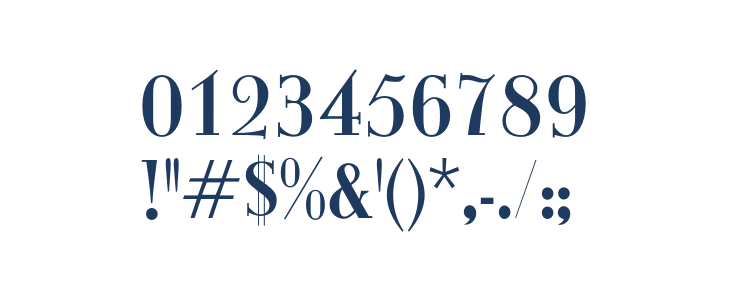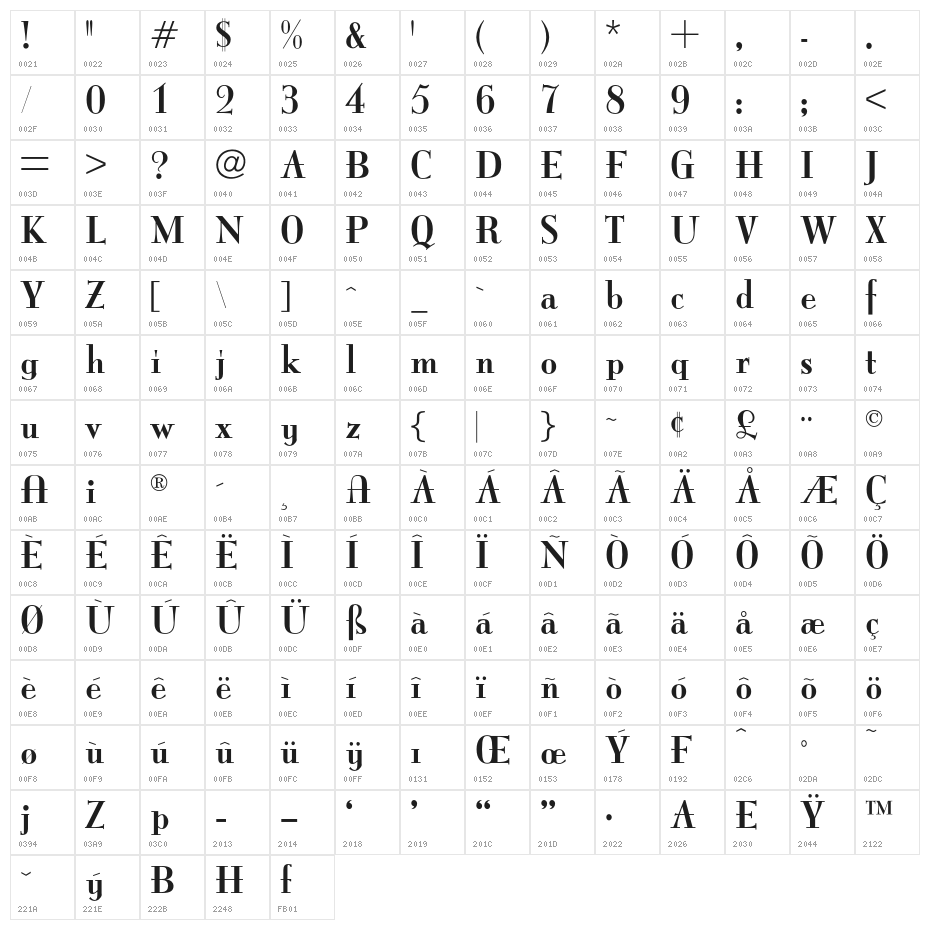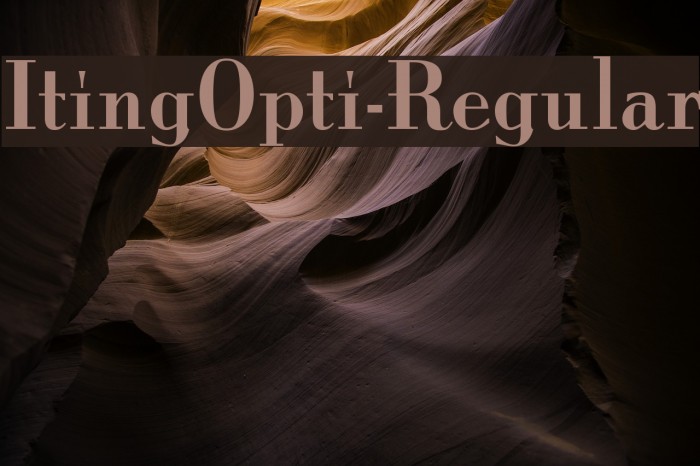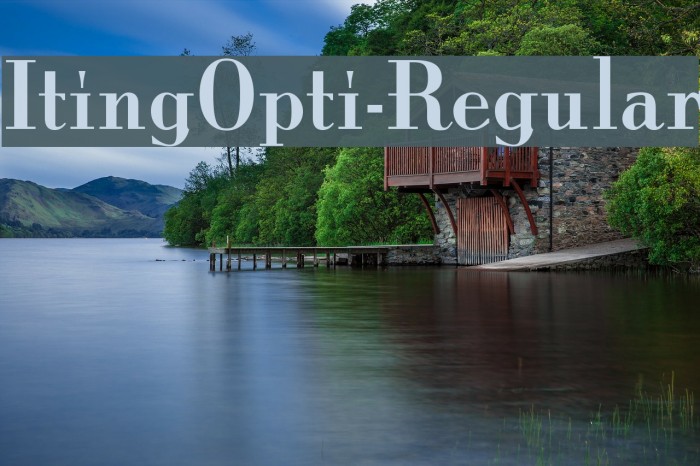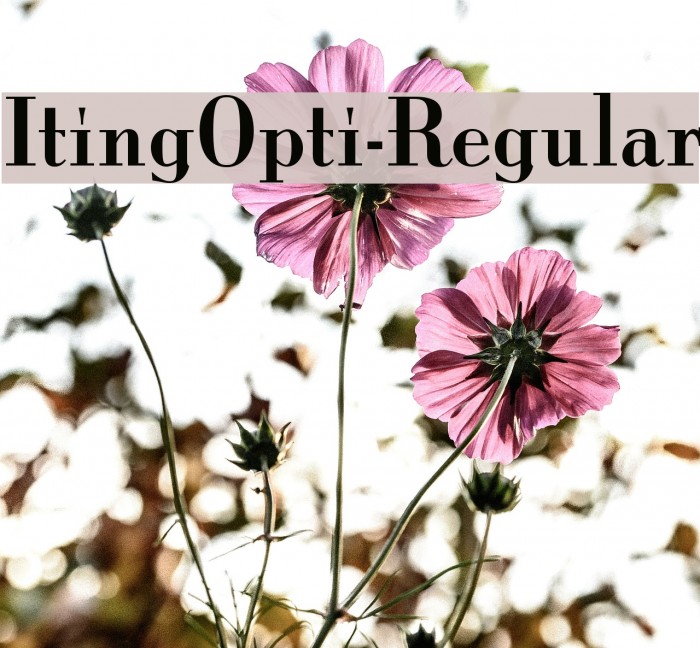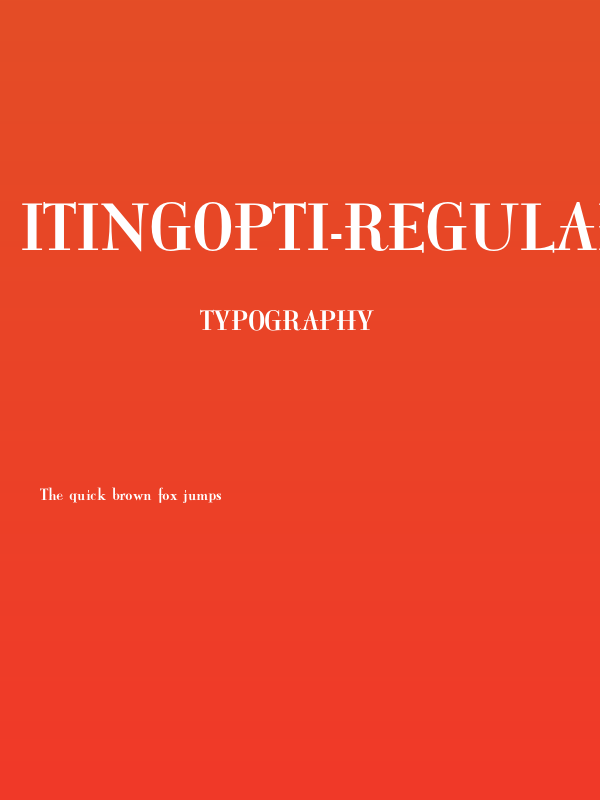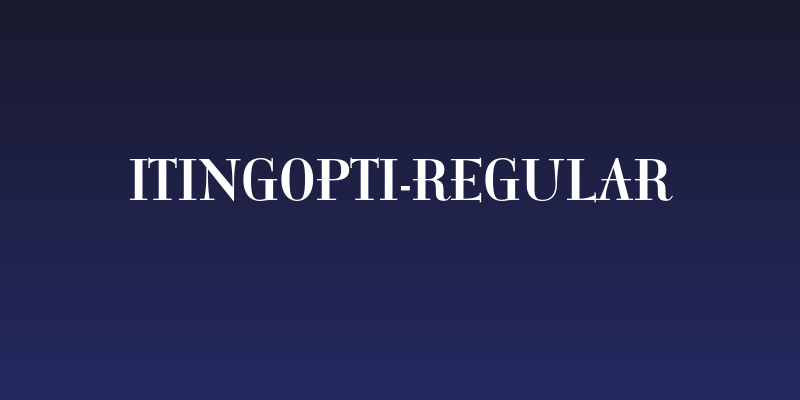
ItingOpti-Regular Font
ItingOpti-Regular Description
This typeface features a classic serif design with high contrast between thick and thin strokes, giving it an elegant and sophisticated appearance. The serifs are sharp and pronounced, adding a touch of formality and tradition. The uppercase letters are tall and commanding, while the lowercase letters maintain a balanced and readable form. The numerals are proportionate and align well with the overall style, making them suitable for both text and display purposes. Special characters are included, maintaining the font's cohesive aesthetic. The font's design is versatile, making it suitable for a variety of applications where a touch of elegance is desired.
| Proposed Projects | Ideal for editorial design, book covers, formal invitations, branding projects, and luxury product packaging. |